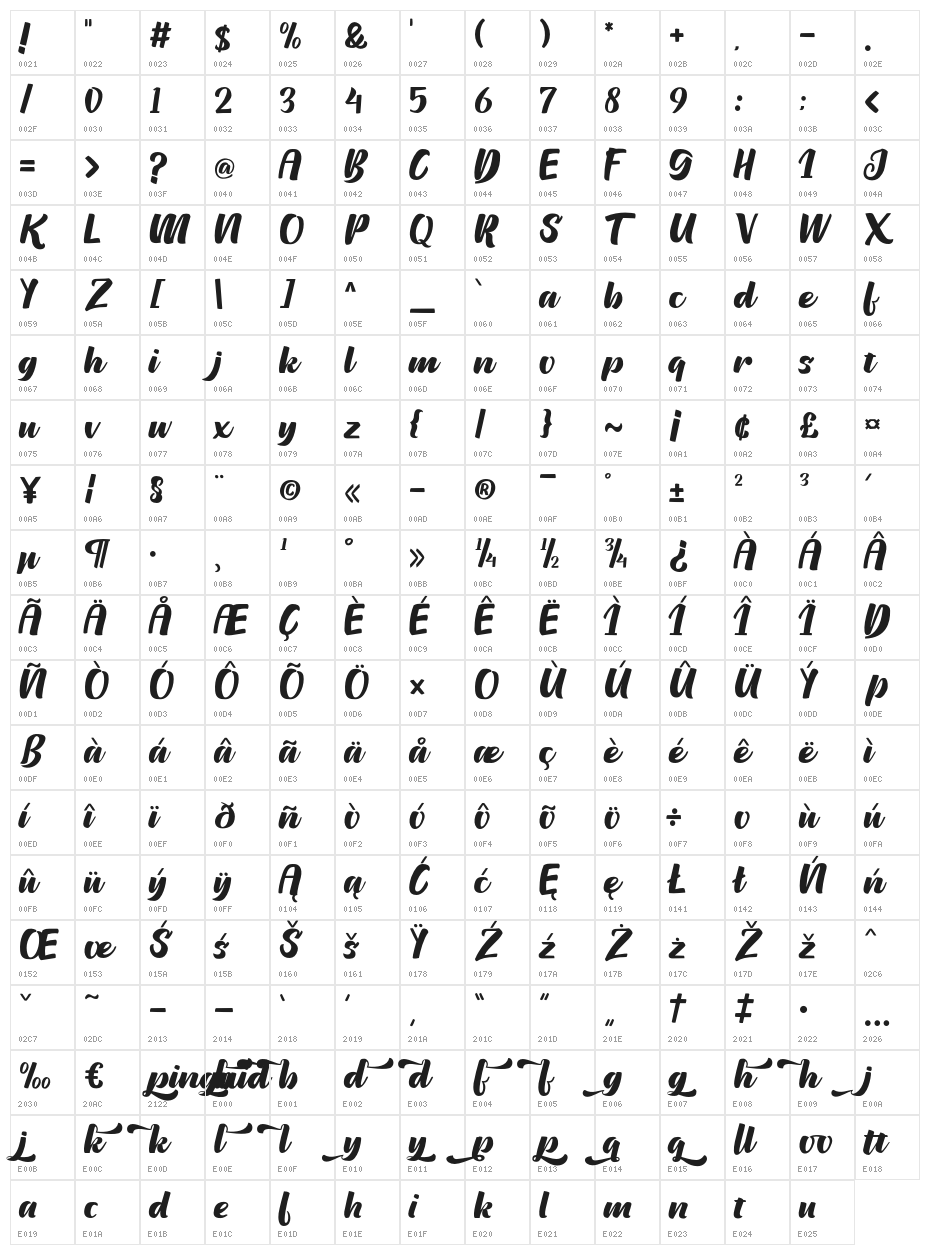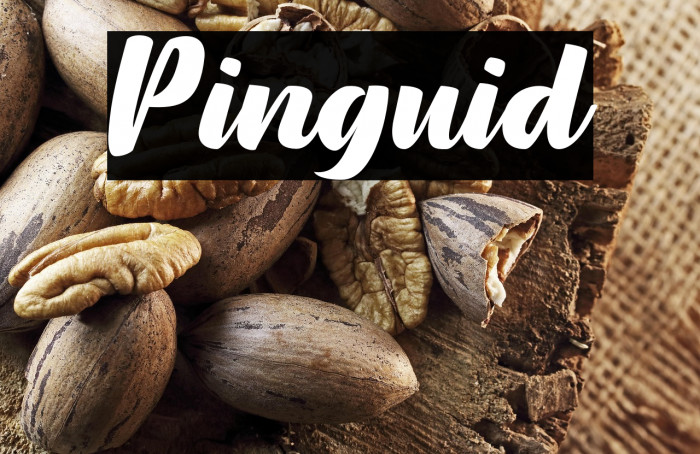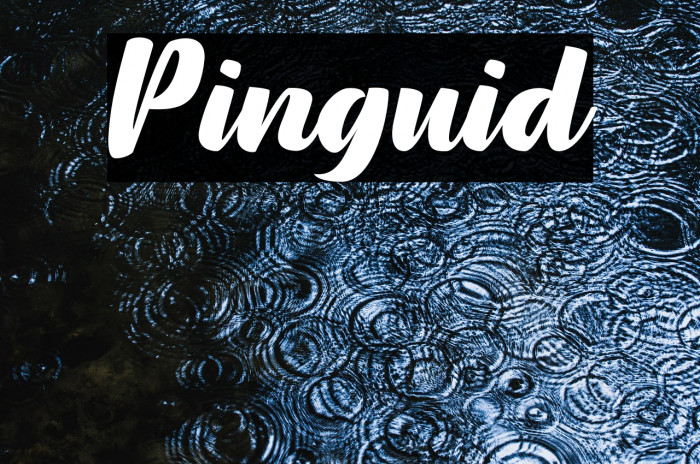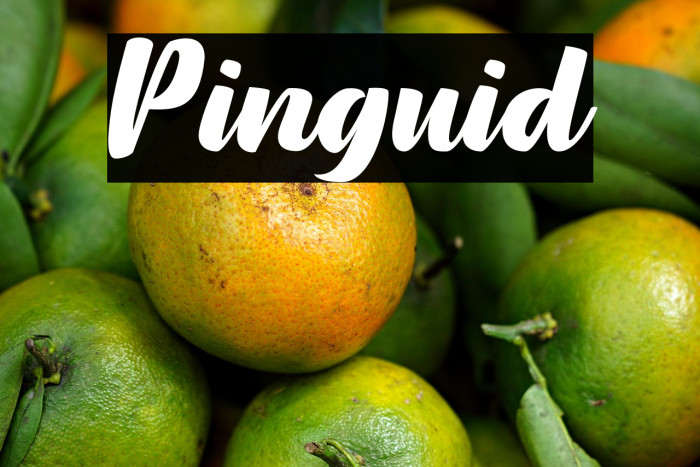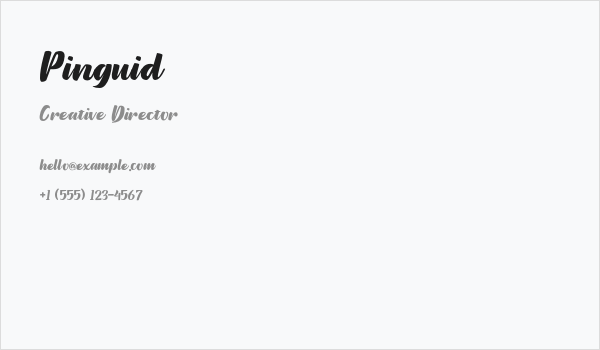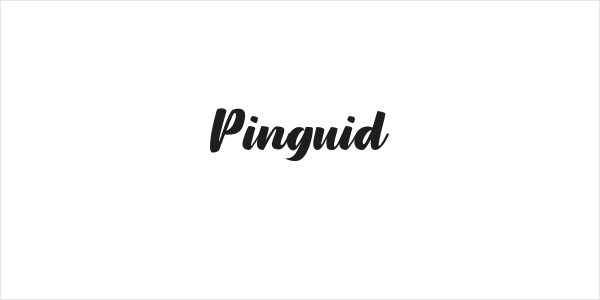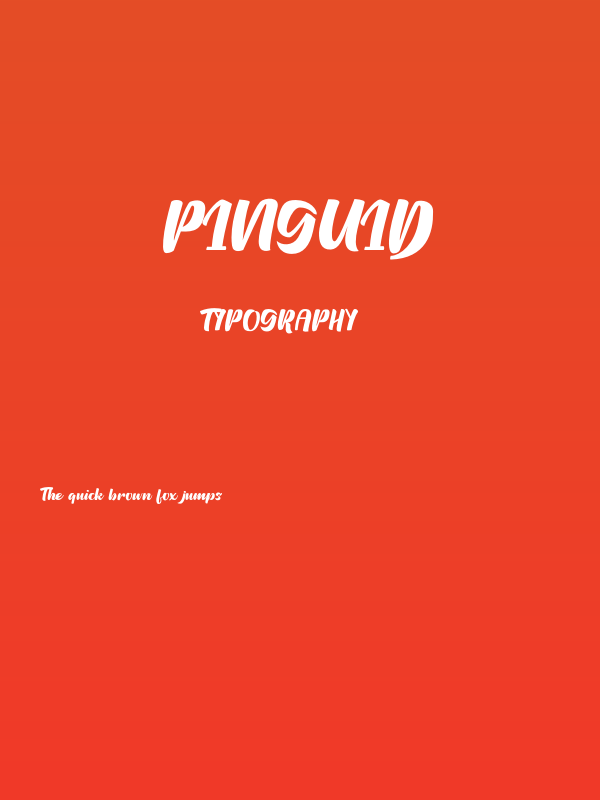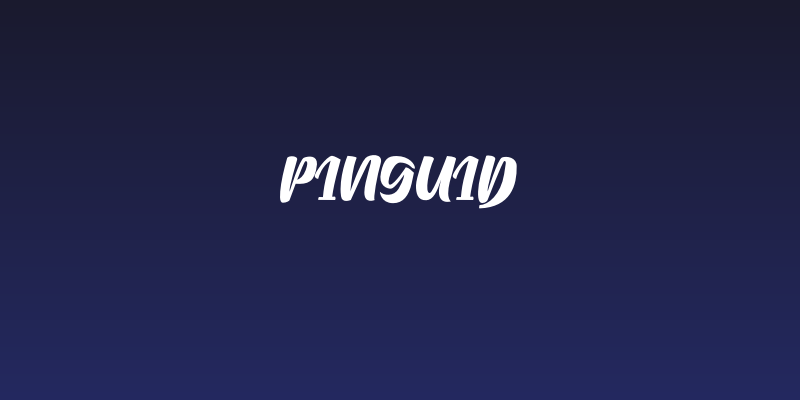
Pinguid Font
Pinguid Description
This font features a bold and expressive script style with a strong presence. The characters are interconnected, giving a sense of fluidity and movement. The uppercase letters are particularly striking, with sweeping curves and a dynamic flow. The lowercase letters maintain this fluidity, creating a cohesive and harmonious look. The numerals are equally bold, matching the overall style of the alphabet. Special characters are designed to complement the script, ensuring consistency across all text elements. This font is perfect for making a statement, with its thick strokes and artistic flair.
| Proposed Projects | Ideal for branding, logo design, invitations, and headlines that require a bold and artistic touch. |